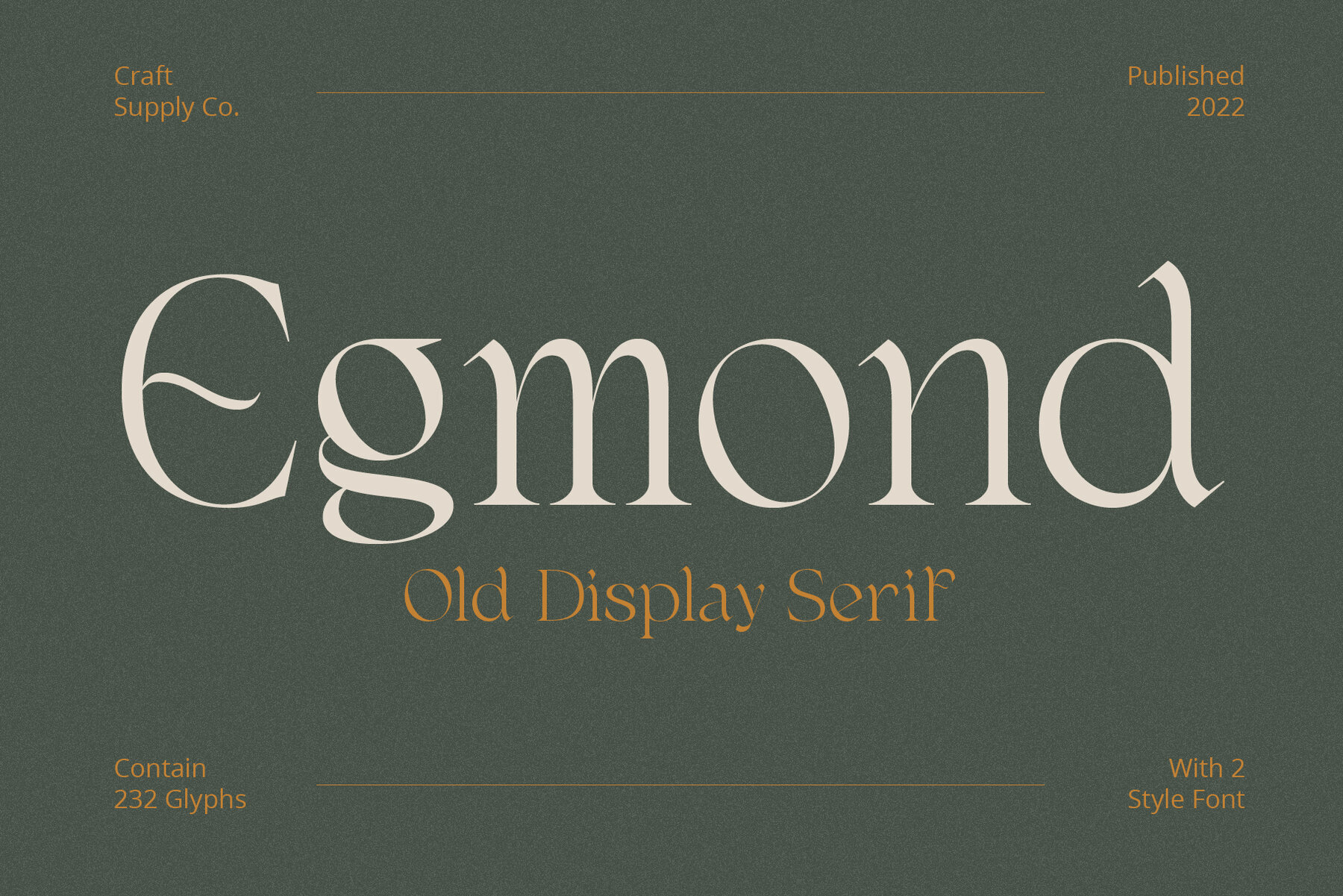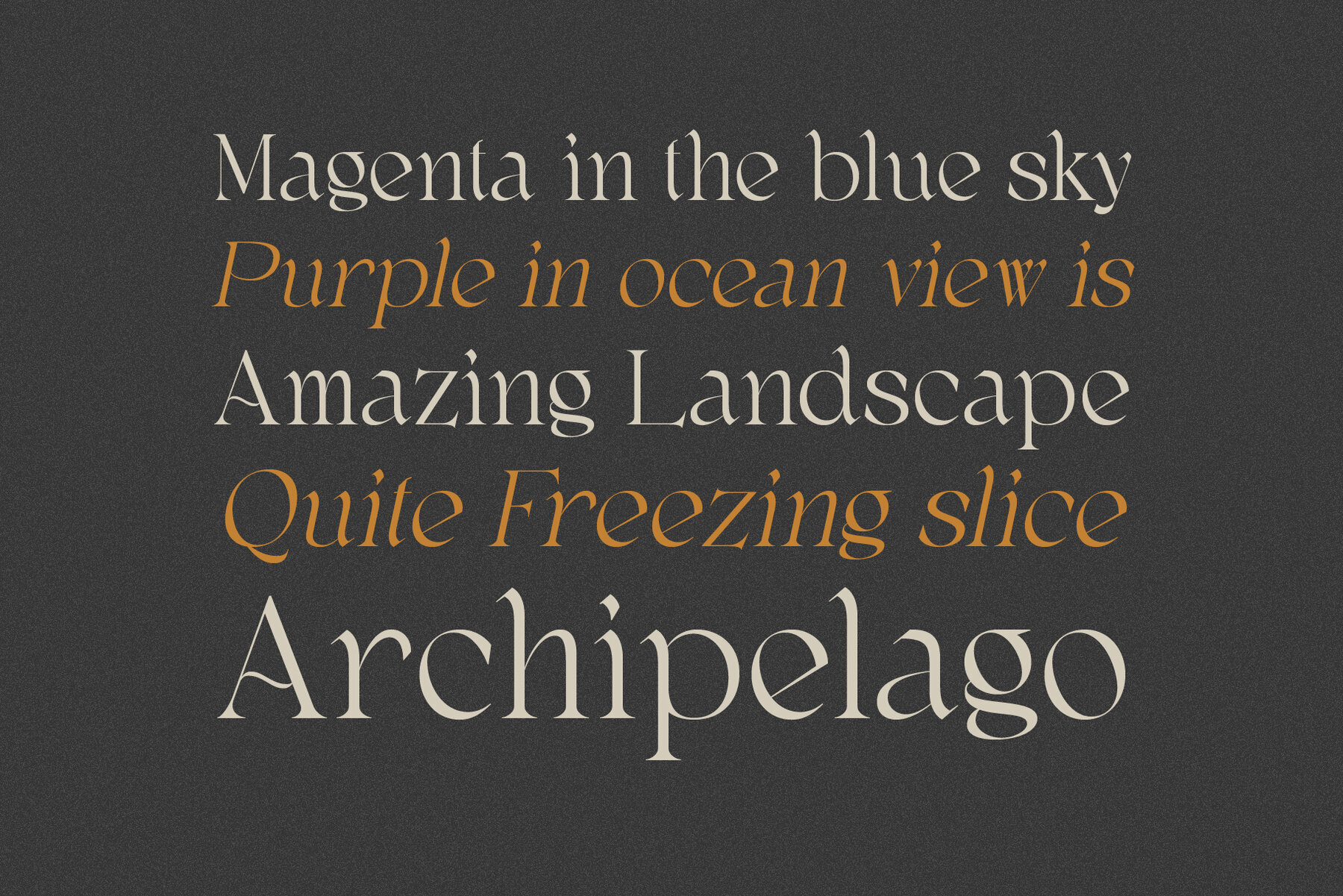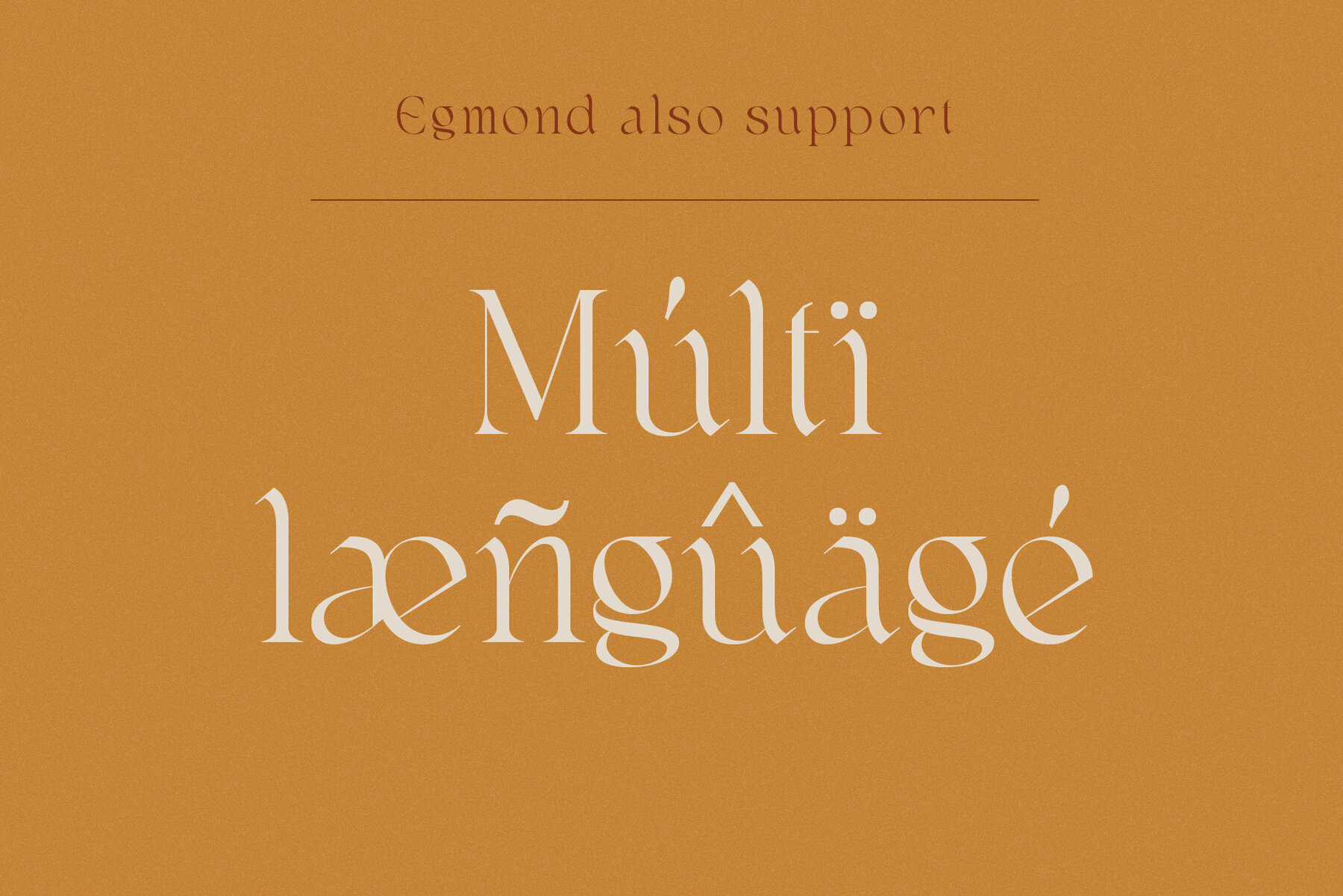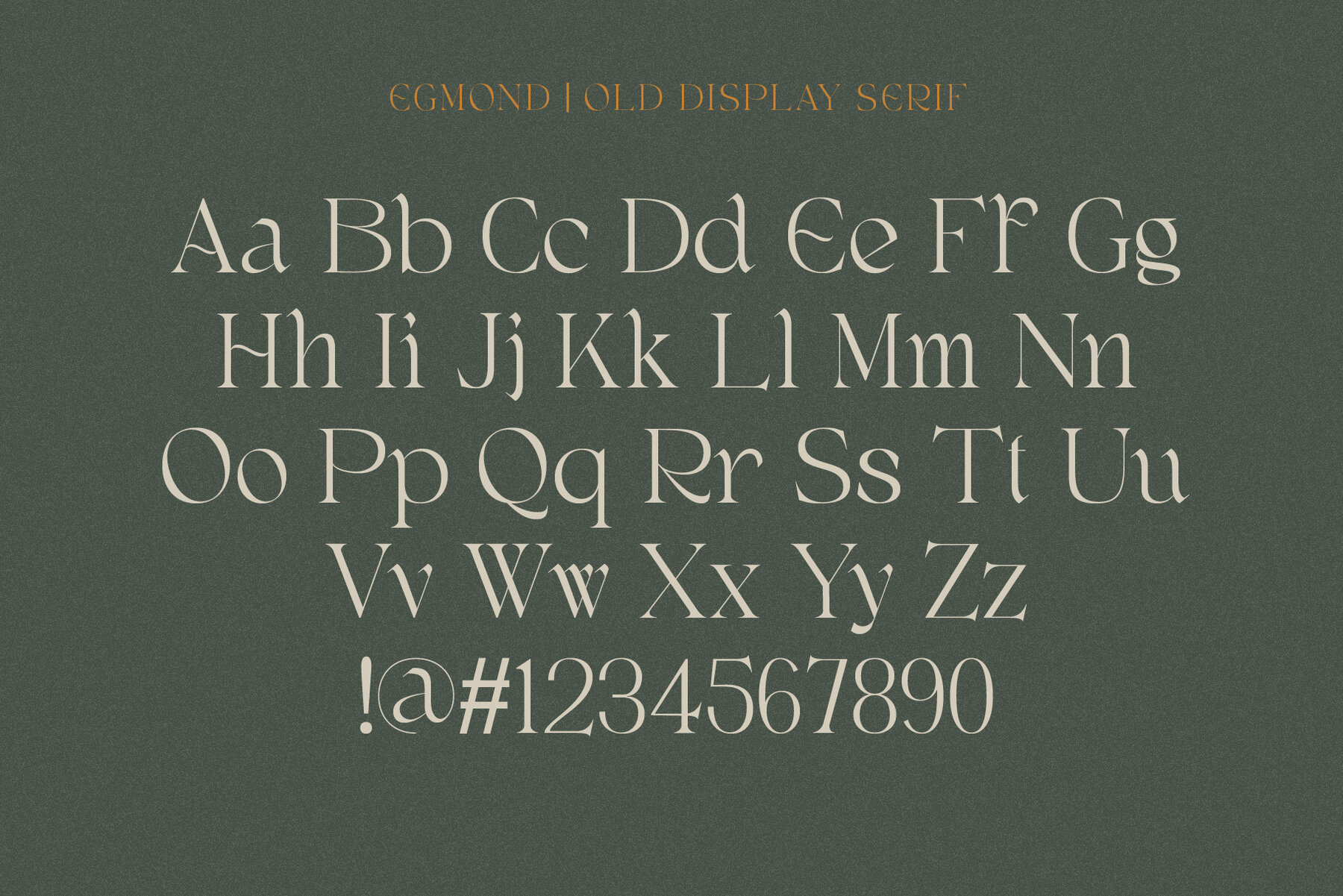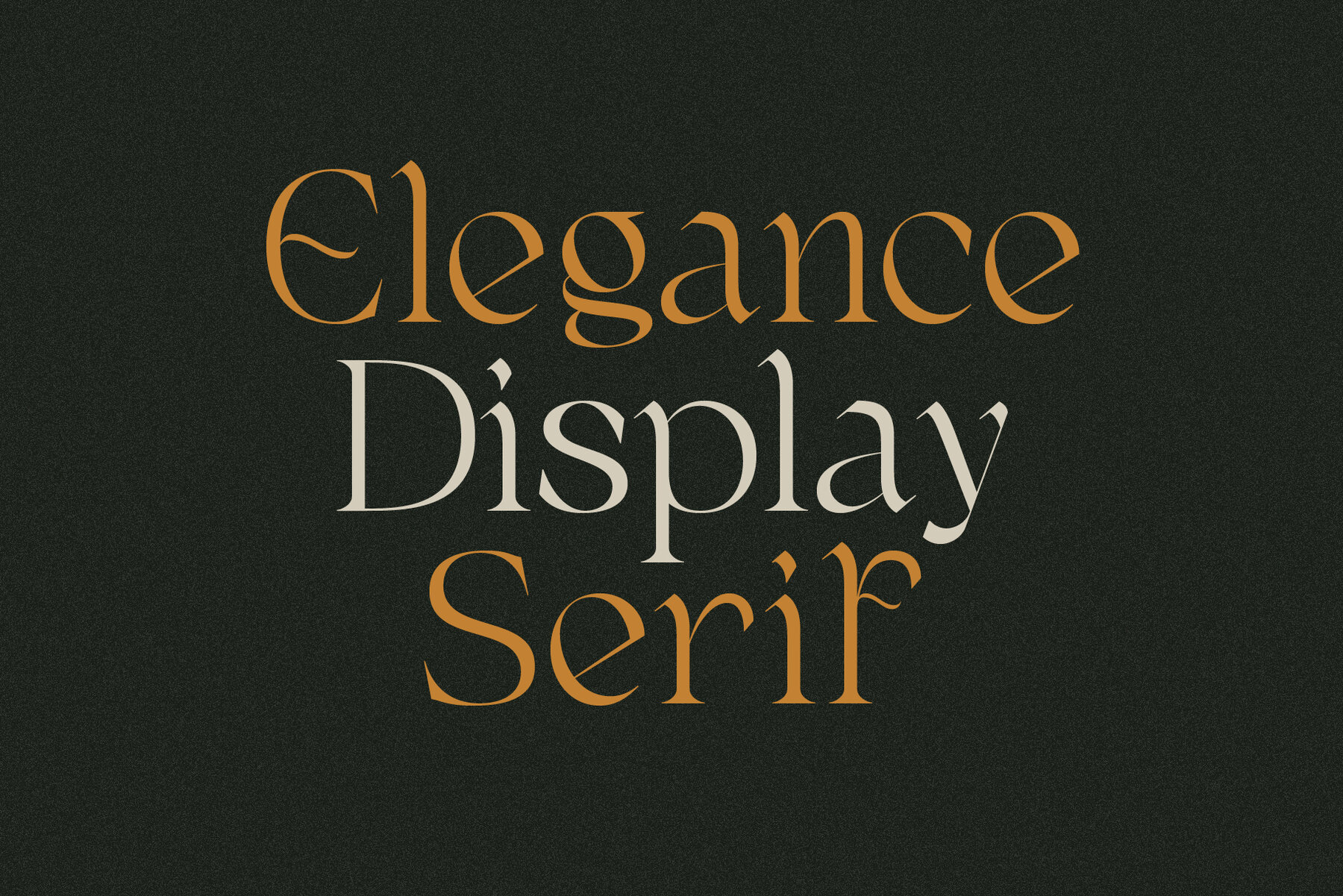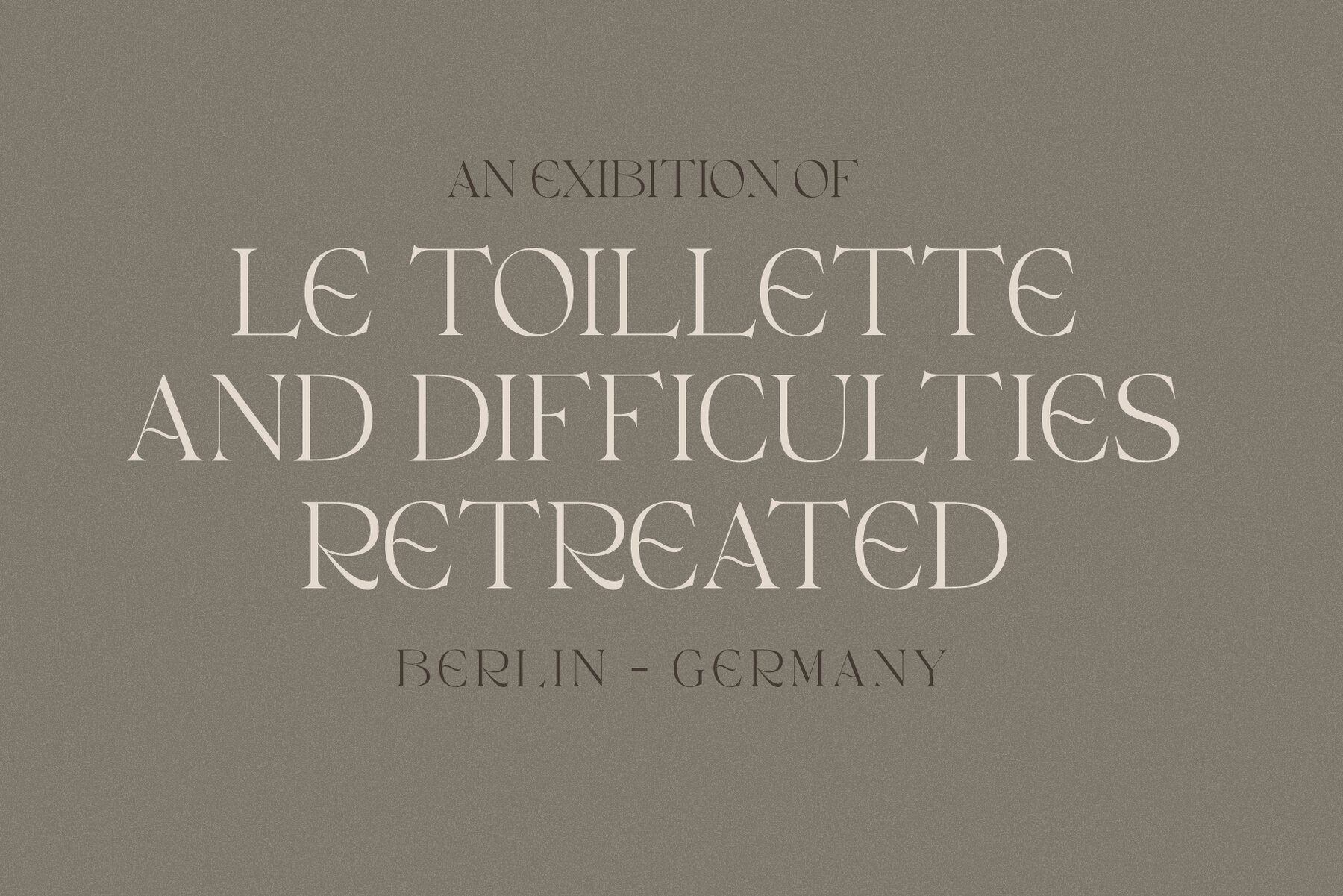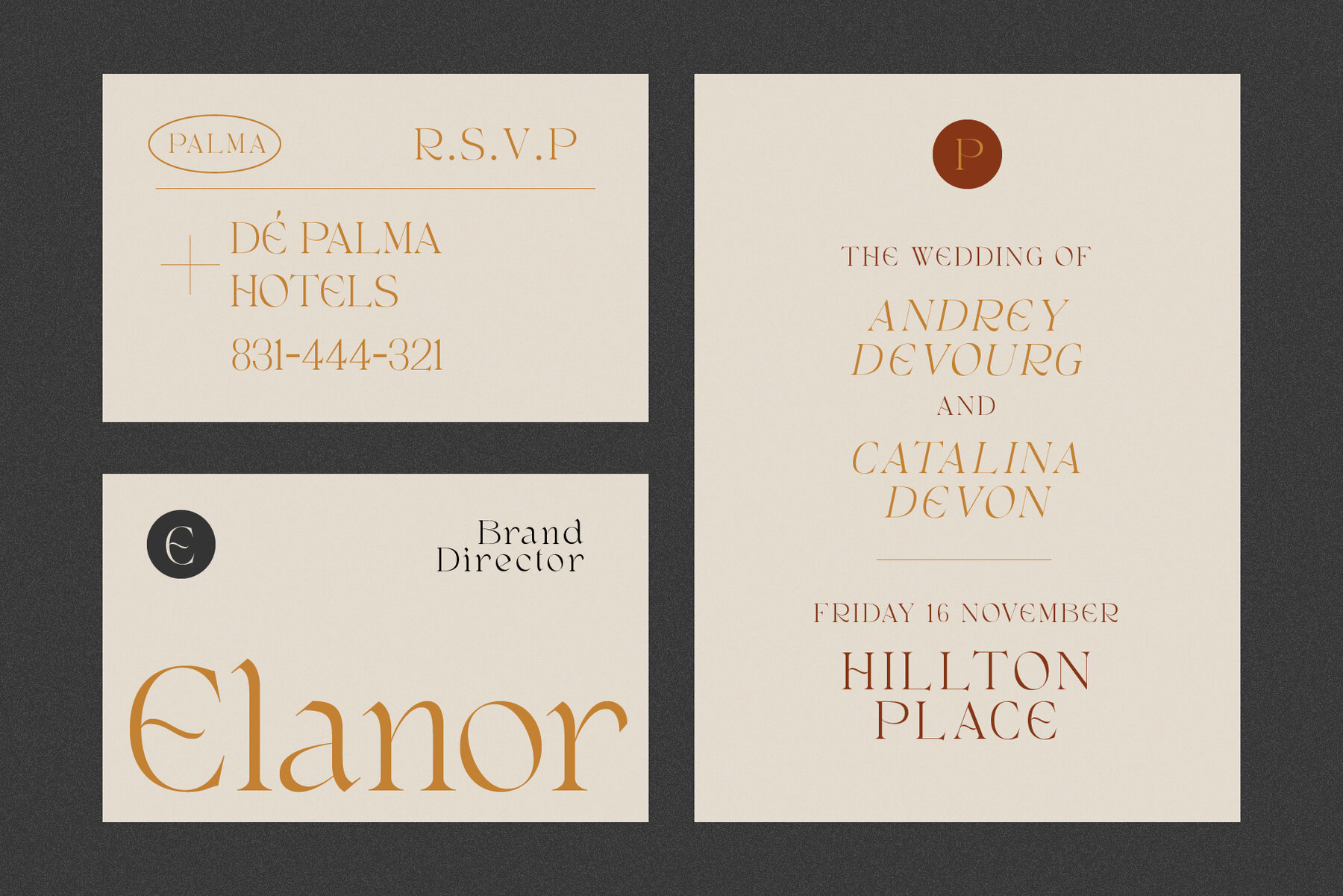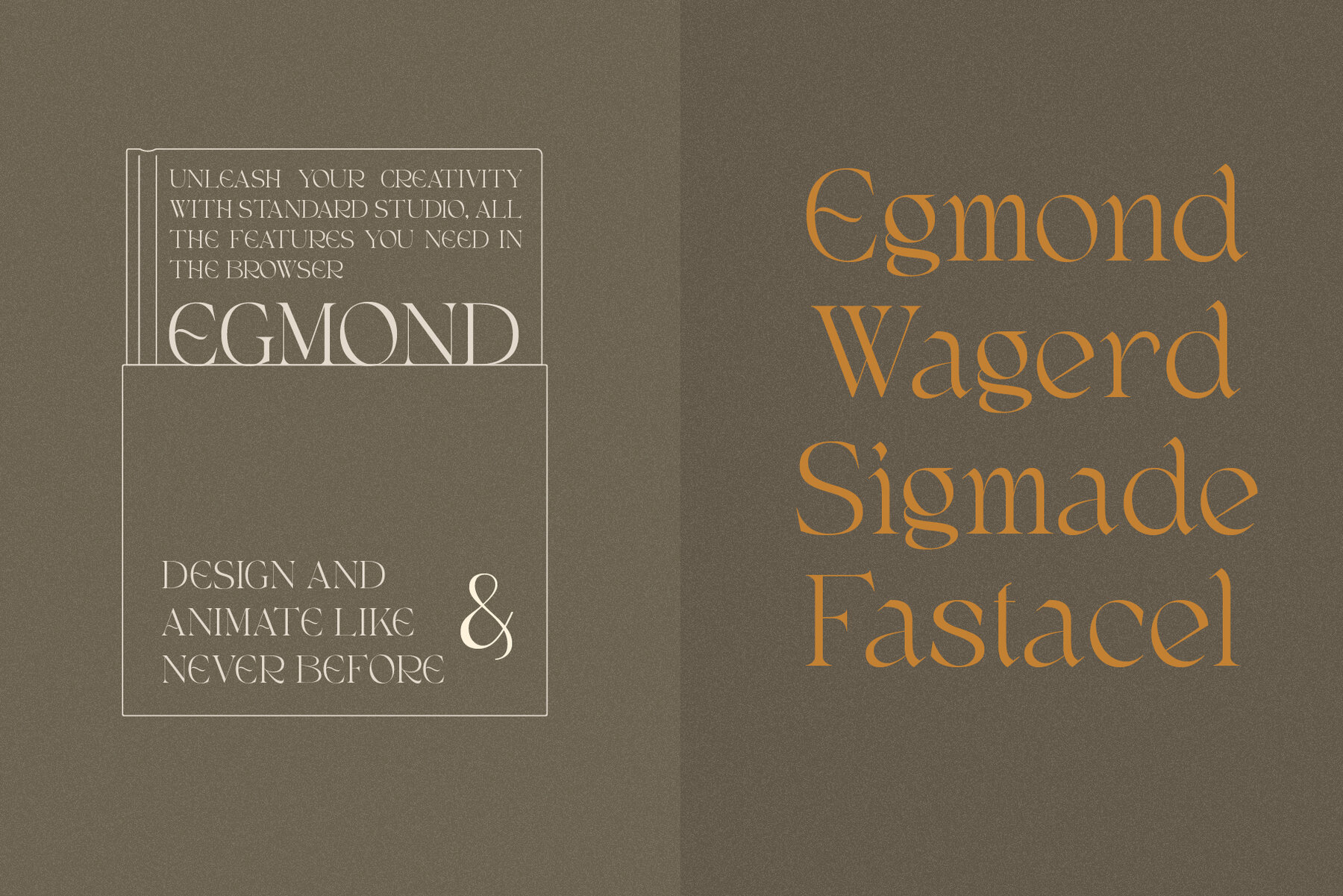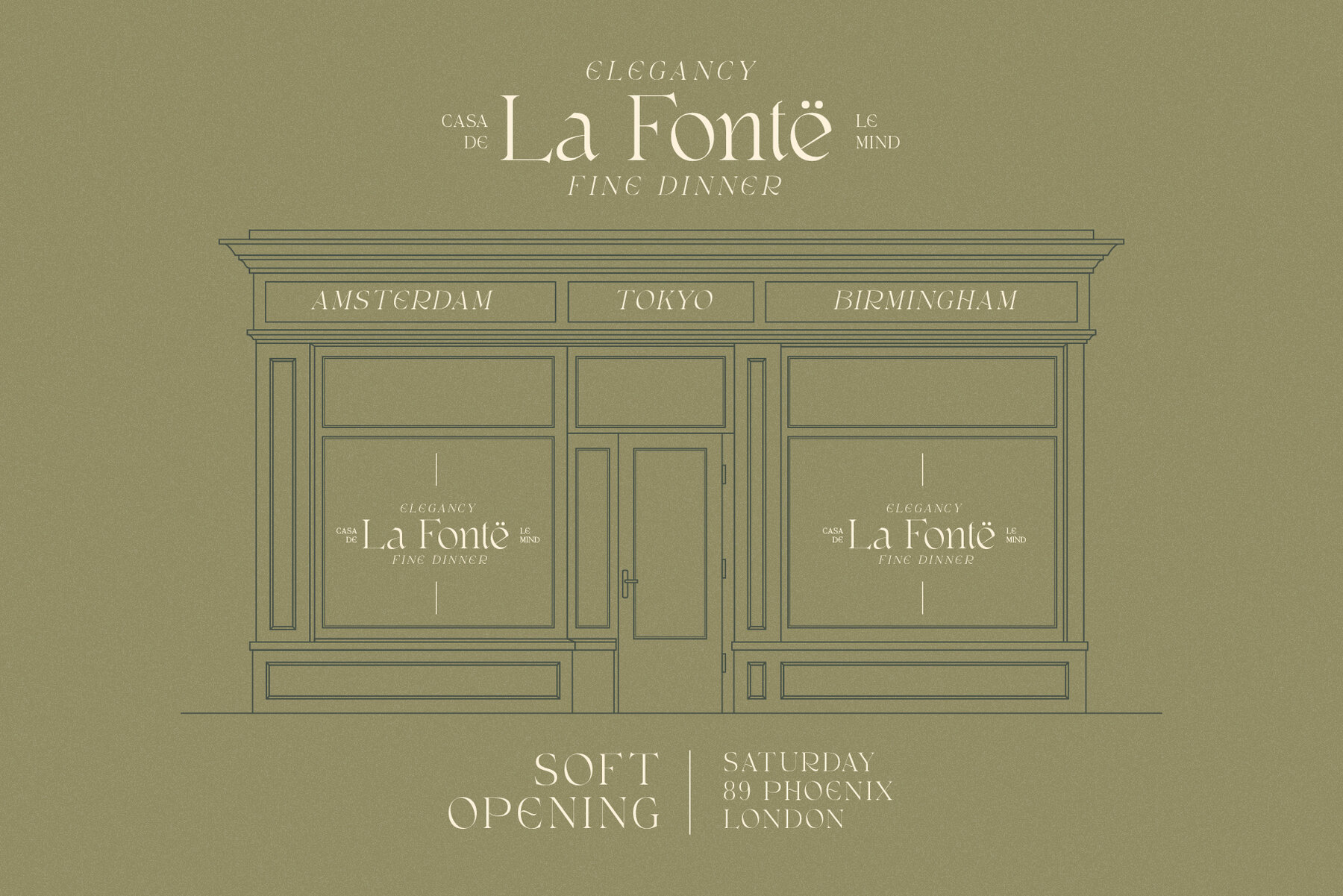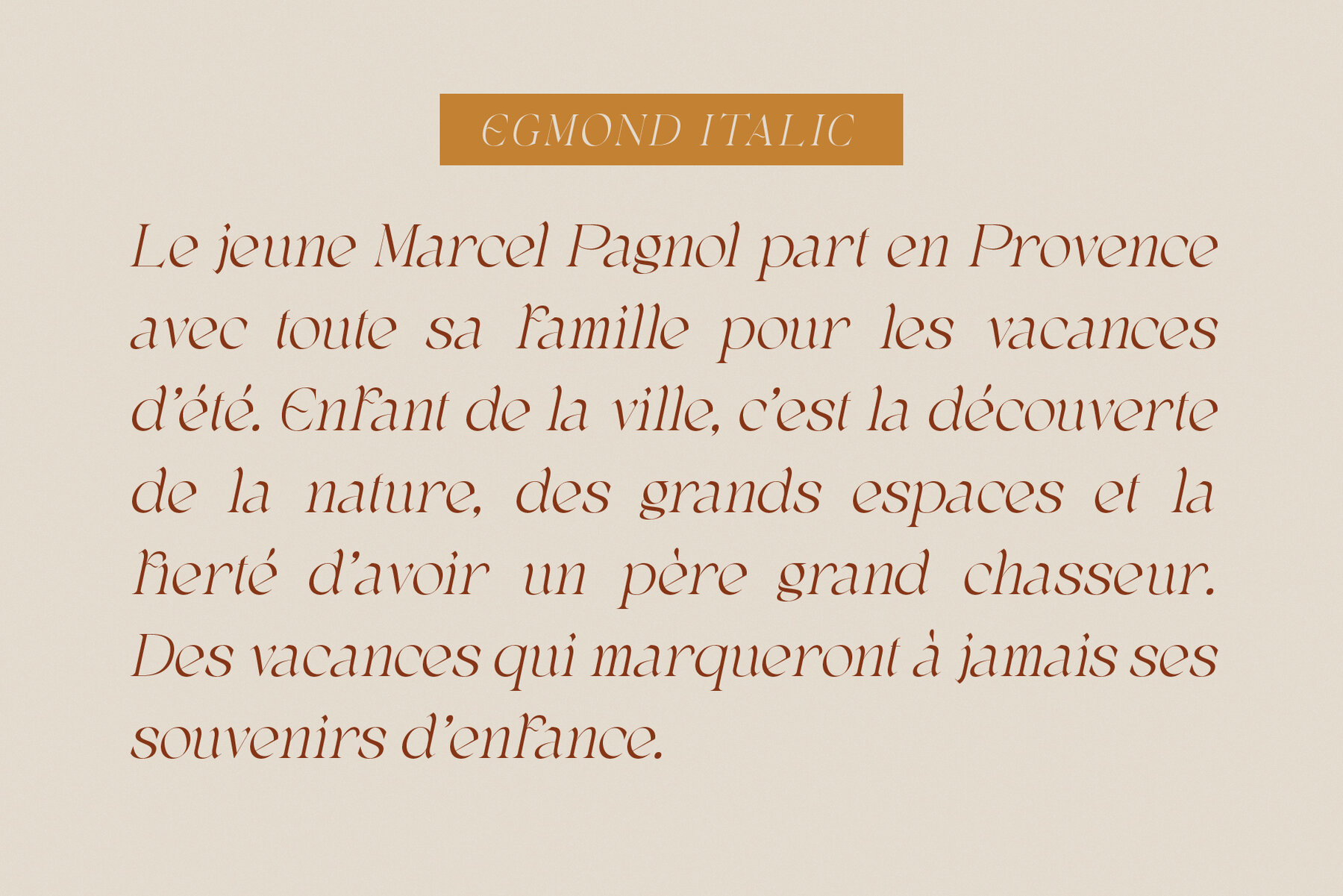
Egmond Font
Elevate your brand's visual narrative with Egmond, an enchanting Old Display Serif that seamlessly complements high-fashion e-commerce platforms, chic wedding boutiques, and trendy blogs. Its versatile design caters to businesses eager to project a polished and classy image. Whether you're crafting a logo, designing a greeting card, or setting the tone for a blog header, Egmond provides the flexibility needed for a wide range of creative endeavors. This serif font adds a touch of elegance to every project, from invitations and stationery to modern envelope lettering and book designs.Egmond: An Elegant Serif for Sophisticated Branding